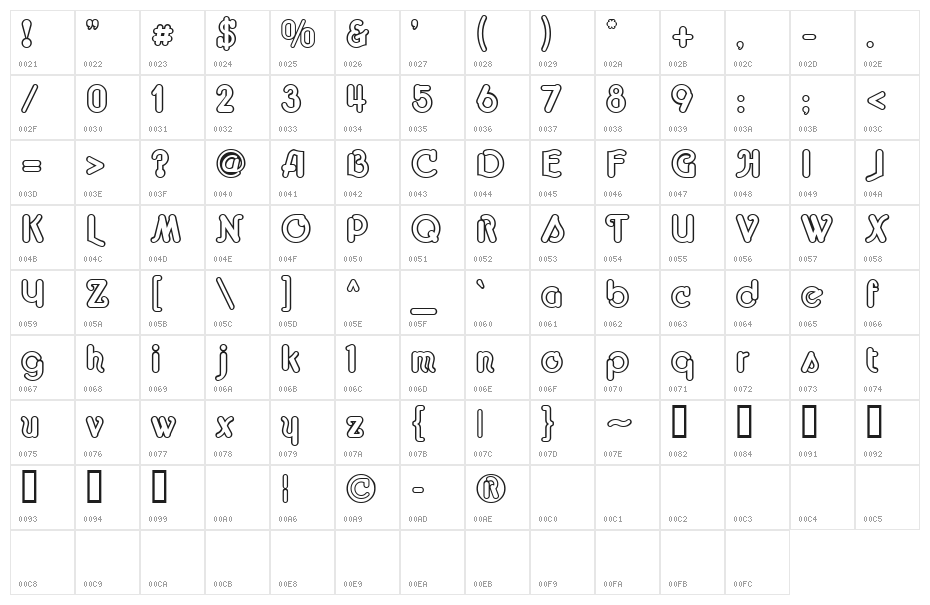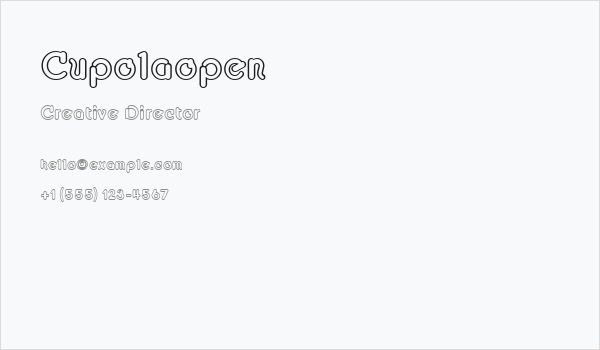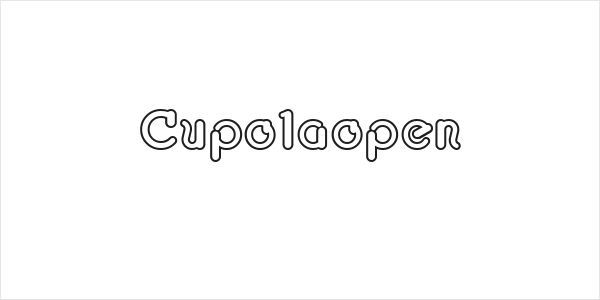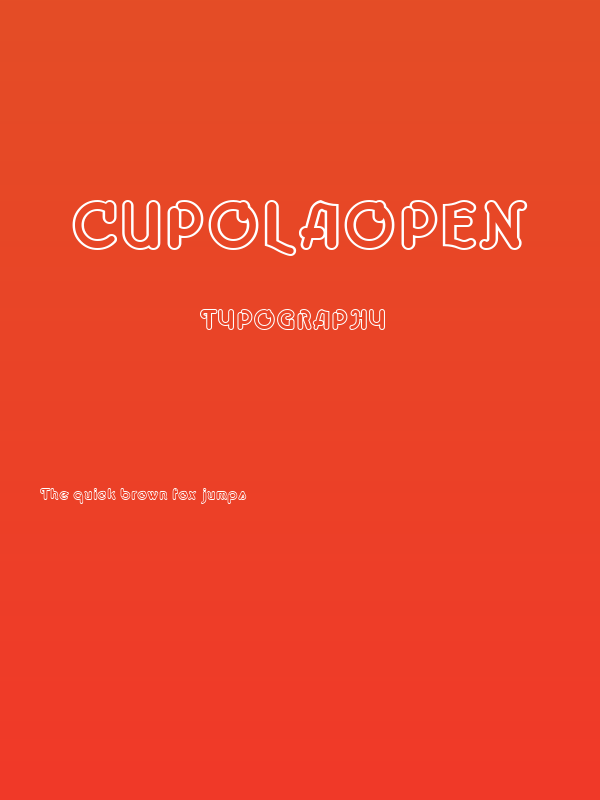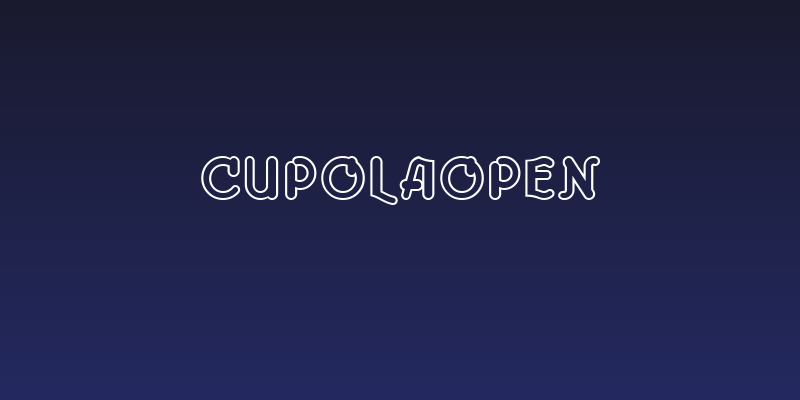
Cupolaopen Font
Cupolaopen Description
This font features a playful and bold outline style, characterized by its thick, rounded edges and hollow interior. The uppercase and lowercase letters maintain a consistent width, giving it a uniform appearance. The numerals and special characters follow the same design, ensuring cohesion across all elements. Its whimsical and approachable design makes it suitable for projects that require a fun and engaging aesthetic. The font's unique outline style adds a layer of depth and creativity, making it stand out in various applications.